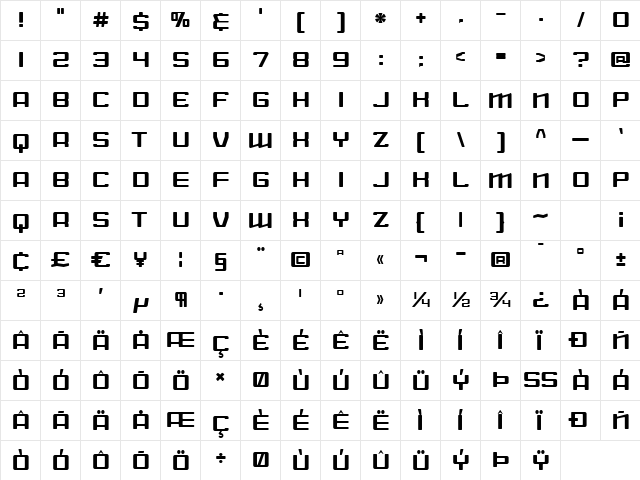
American Highway Regular
Design Context for American Highway Typeface
American Highway offers clean, dependable letterforms without strong stylistic allegiance, making it a practical choice for designers who need flexibility.
Pro Tip: Pair American Highway with a font of contrasting weight or personality to build a more expressive typographic hierarchy.